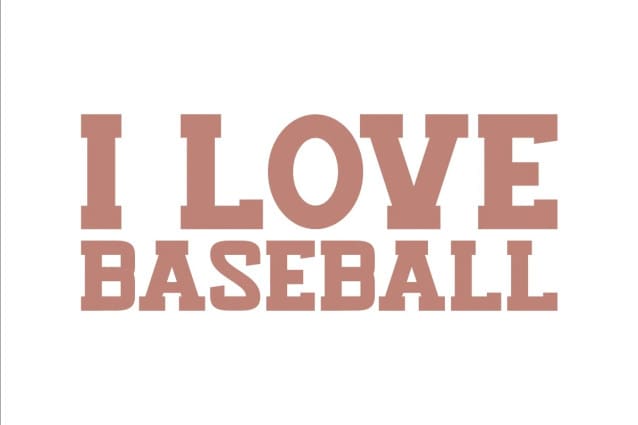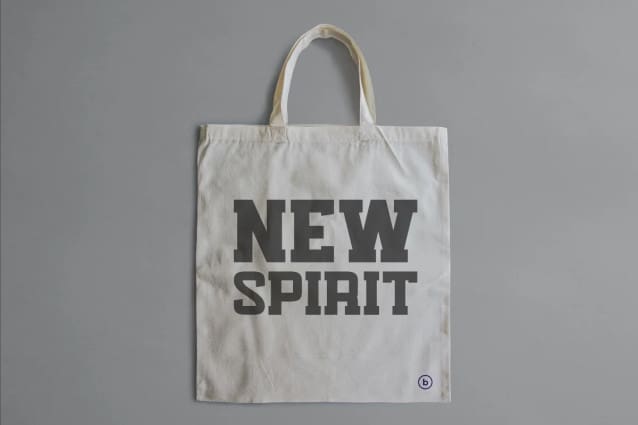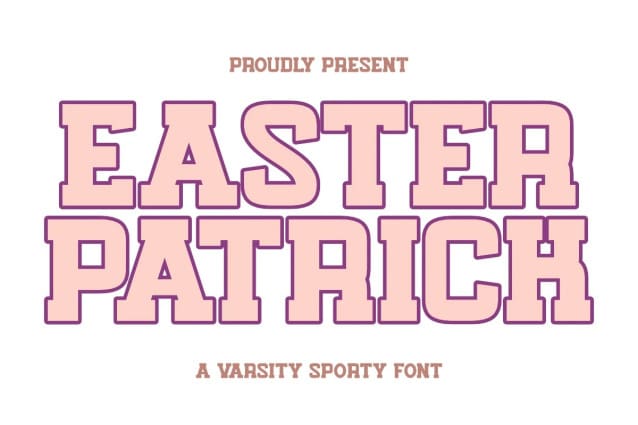
Easter Patrick Font
Easter Patrick Font, is a varsity sports slab serif font suitable for university. A font that is very suitable for crafts, labels, quotes, SVG files, decorations, labels, logotypes, book covers, t-shirts, web, posters, stickers, wall art, or other ideas. A font suitable for Crafters and Graphic Designers. This font is also suitable for Social Media. Compatible with various tools such as Photoshop or Silhouette Design Project.